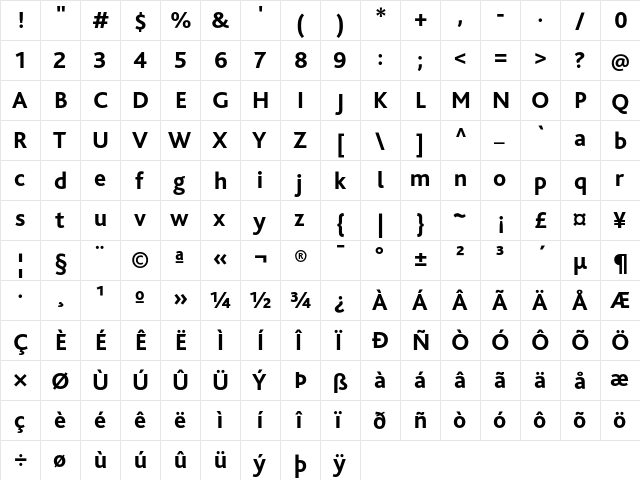
Bliss Pro ExtraBold
Design Context for Bliss Pro Typeface
Bliss Pro offers clean, dependable letterforms without strong stylistic allegiance, making it a practical choice for designers who need flexibility. The heavy weight commands attention and anchors typographic hierarchies.